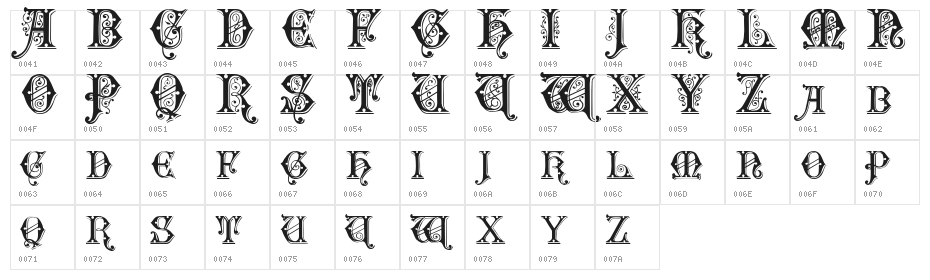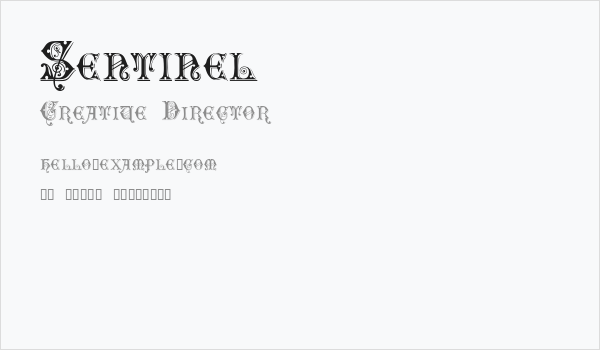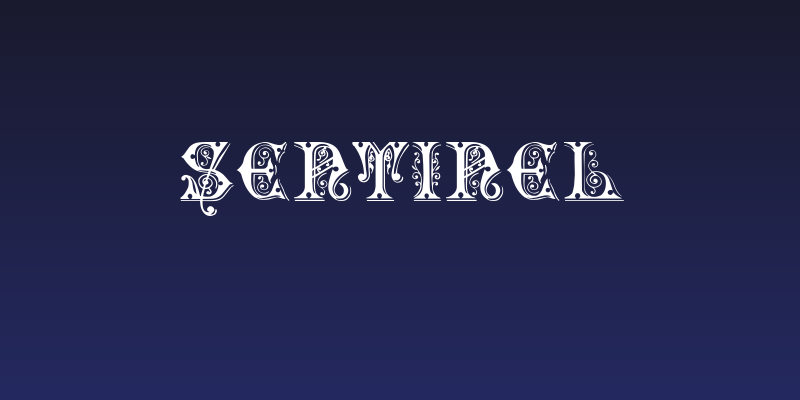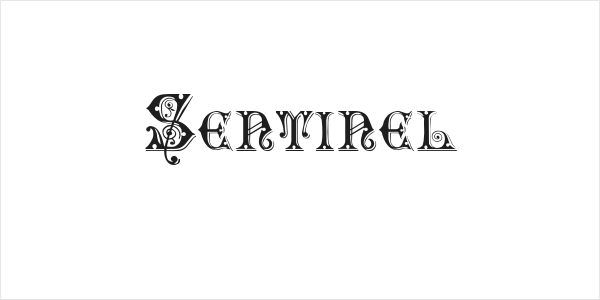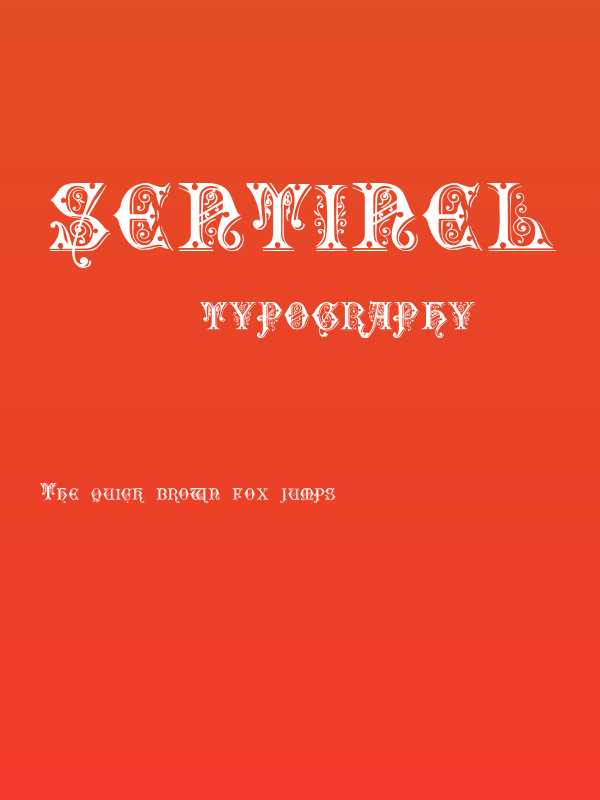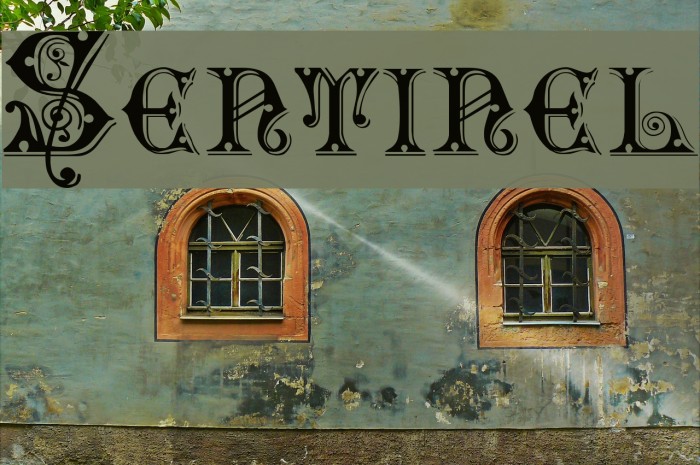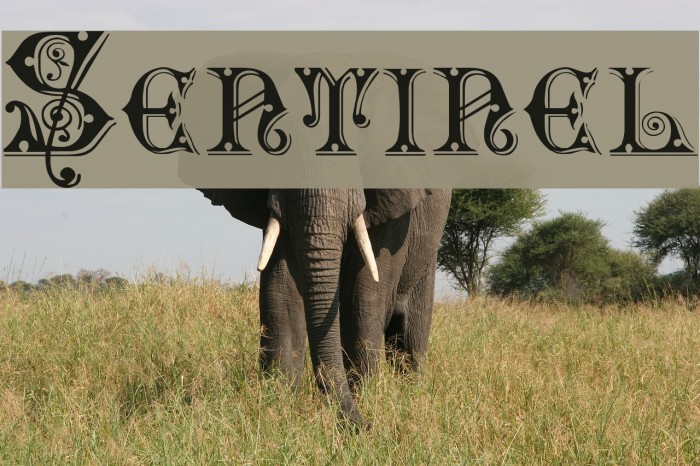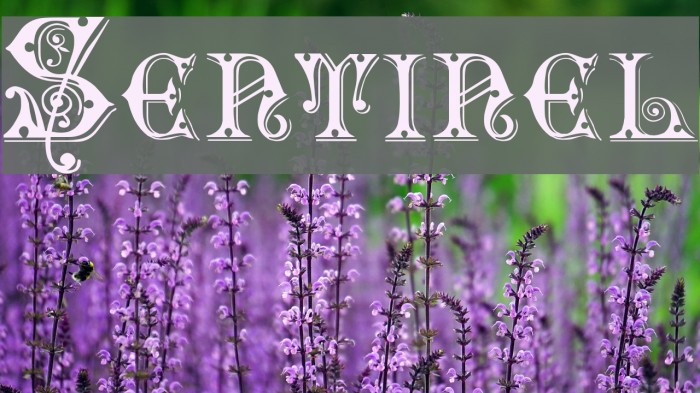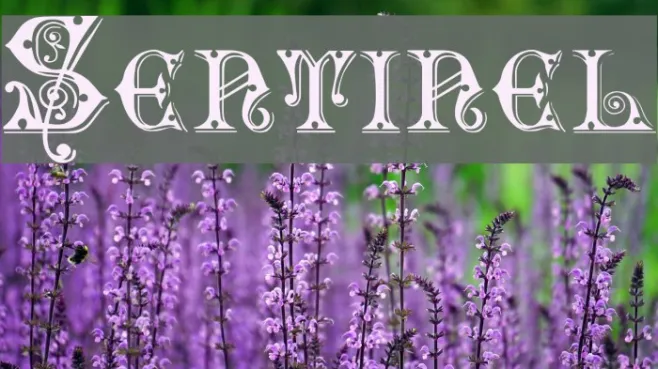
Sentinel Font
Sentinel Description
This font is a highly decorative and intricate typeface that draws inspiration from traditional Blackletter styles. Each character is adorned with elaborate flourishes and embellishments, giving it a regal and ornate appearance. The uppercase letters are particularly detailed, featuring sharp angles and pointed serifs that enhance the font's dramatic flair. The overall design is reminiscent of medieval manuscripts and Gothic architecture, making it ideal for projects that require a historical or fantasy theme. The font's complexity and unique style make it a standout choice for special occasions and artistic endeavors.
| Use Case | Logos, Headlines, Decorative text |
| Proposed Projects | Ideal for wedding invitations, historical-themed posters, fantasy book covers, and decorative signage. |